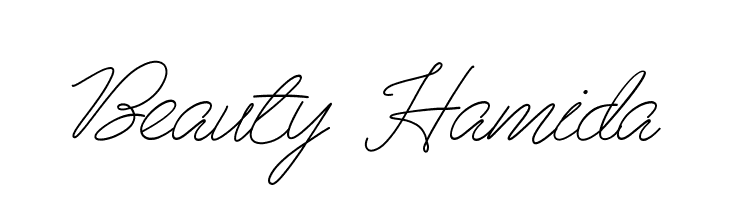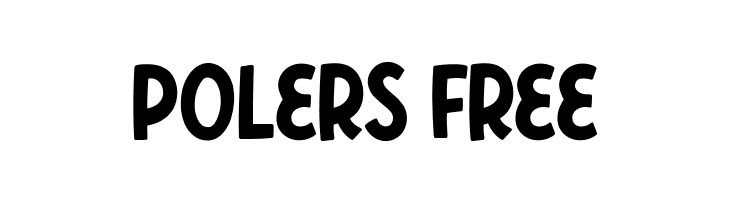
A graceful script font with flowing, cursive strokes and elegant design.
A bold, italic font with smooth, rounded edges and a modern slant.
A bold, italicized font with a dynamic and modern style.
A bold, modern sans-serif font with clean lines and balanced spacing.
A bold, gothic blackletter font with intricate detailing and a medieval flair.
A bold, modern serif typeface with strong, thick strokes and pronounced serifs.
A bold, playful font with rounded strokes and a cartoonish style.
A playful, handwritten font with a casual and friendly appearance.
A modern, thin sans-serif font with a clean and minimalistic design.